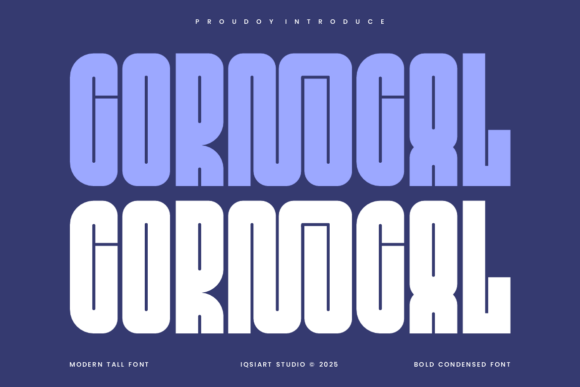
Cornocal Font: A Quirky and Versatile Display Font
In the world of typography, fonts play a crucial role in conveying messages, expressing emotions, and creating visual identities. With the vast array of fonts available, it can be challenging to find one that stands out from the rest. However, if you’re looking for a unique and interesting display font, look no further than Cornocal. This quirky font has been gaining attention for its exceptional versatility and ability to thrive in various contexts.
What is Cornocal Font?
Cornocal is a display font that boasts a distinctive and eye-catching design. Its quirky nature makes it an excellent choice for creative projects, such as posters, flyers, and social media graphics. The font’s unique character set and irregular shapes give it a charming personality that can add a touch of whimsy to any design.
One of the standout features of Cornocal is its ability to balance playfulness with sophistication. While it may appear unconventional at first glance, the font exudes a certain level of elegance that makes it suitable for a wide range of applications. Whether you’re designing a logo, headline, or title, Cornocal can help you create a visually striking and memorable piece.
Key Features of Cornocal Font
- Unique character set: Cornocal’s character set is unlike any other font. Its irregular shapes and quirky design elements make it a true standout.
- Versatile: Despite its distinctive nature, Cornocal can be used in a variety of contexts, from creative projects to corporate designs.
- Elegant: While Cornocal may appear playful, it also exudes a level of sophistication that makes it suitable for high-end designs.
- Easy to read: Despite its quirky design, Cornocal remains easy to read, making it an excellent choice for headlines and titles.
Using Cornocal Font in Different Contexts
Cornocal’s versatility is one of its most significant advantages. Here are some examples of how you can use this font in different contexts:
- Posters and flyers: Cornocal is an excellent choice for creating eye-catching posters and flyers. Its quirky design and bold appearance make it perfect for grabbing attention.
- Social media graphics: With its unique character set and elegant design, Cornocal can help you create visually striking social media graphics that stand out from the crowd.
- Logos and branding: Cornocal’s distinctive design makes it an excellent choice for creating logos and branding materials. Its quirky nature can help you establish a memorable and recognizable brand identity.
- Headlines and titles: Cornocal’s elegant design and ease of readability make it an excellent choice for headlines and titles. Use it to add a touch of sophistication to your designs.
Pairing Cornocal Font with Other Fonts
While Cornocal is an exceptional font on its own, pairing it with other fonts can create a truly stunning design. Here are some font pairing suggestions:
- Open Sans: Pairing Cornocal with Open Sans creates a beautiful contrast between the quirky display font and the clean, modern sans-serif font.
- Lato: Lato’s elegant design complements Cornocal’s quirky nature, creating a sophisticated and visually striking combination.
- Merriweather: Pairing Cornocal with Merriweather creates a stunning contrast between the modern display font and the classic serif font.
Tips and Tricks for Using Cornocal Font
Here are some tips and tricks to help you get the most out of Cornocal:
- Experiment with font sizes: Cornocal looks great in various font sizes. Experiment with different sizes to find the perfect fit for your design.
- Play with colors: Cornocal’s quirky design makes it an excellent choice for colorful designs. Experiment with different colors to find the perfect combination.
- Use it sparingly: While Cornocal is an exceptional font, it’s best to use it sparingly. Use it for headlines and titles, and pair it with other fonts for body text.
In conclusion, Cornocal is a unique and interesting display font that offers a quirky and versatile design. Its exceptional features, such as its unique character set and elegant design, make it an excellent choice for a wide range of applications. By following the tips and tricks outlined in this article, you can get the most out of Cornocal and create visually striking designs that stand out from the crowd.